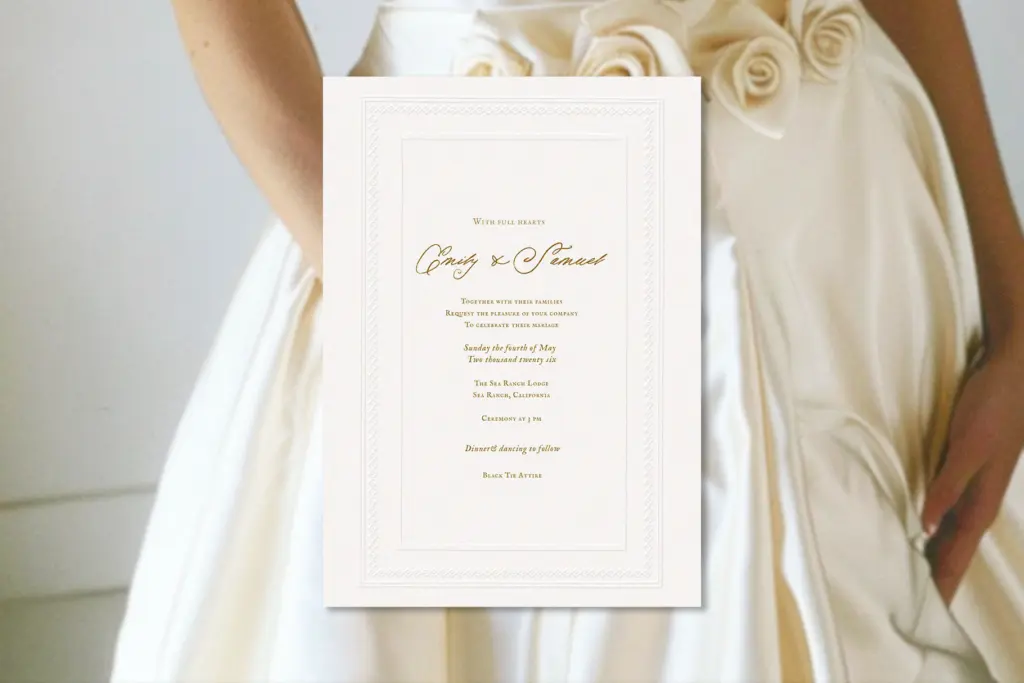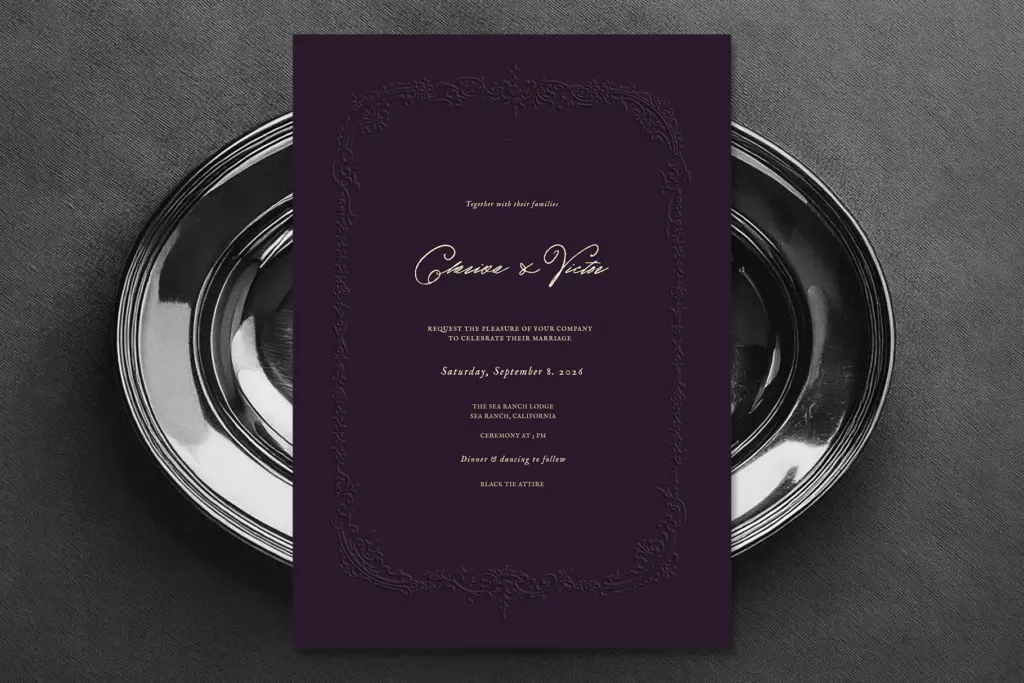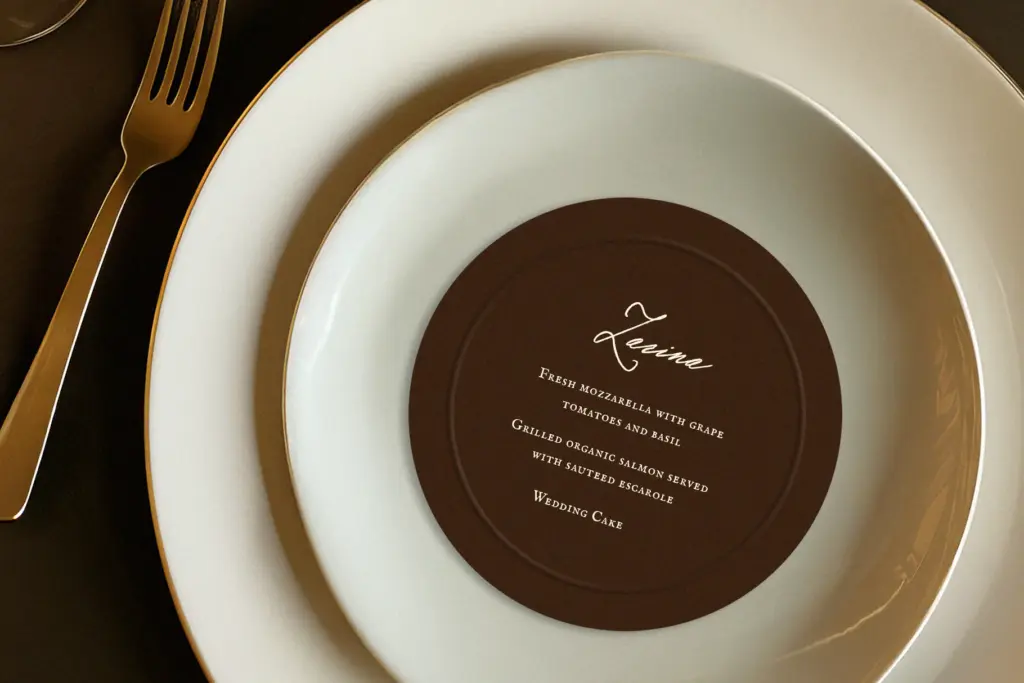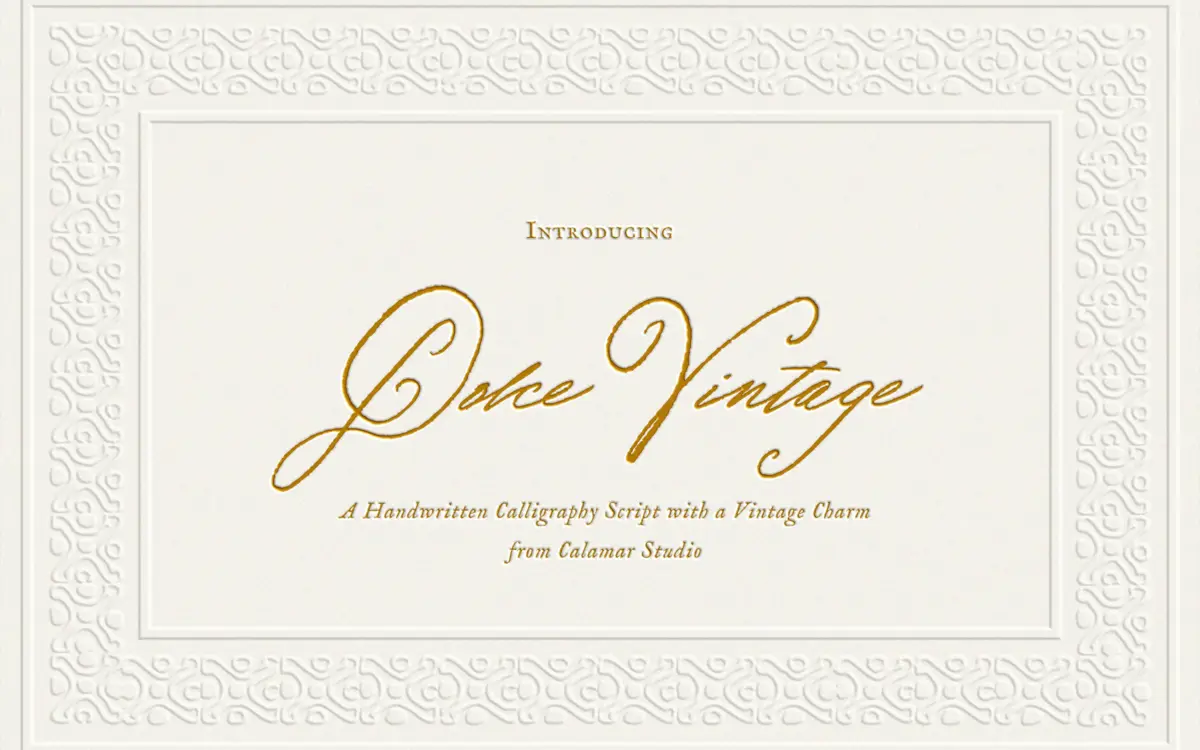
Dolce Vintage sits in the crowded field of casual calligraphic scripts, but its selling point is texture rather than flourish. The strokes carry a broken, torn-edge quality that reads as if the pen was dragged over slightly rough paper — ink catching and skipping rather than laying down a clean line. That grain gives it a handmade warmth that a lot of vector-smooth scripts lack. The letterforms themselves are unshowy: moderate slant, loose joins, a baseline that dips and rises the way real handwriting does rather than snapping to a grid.
Where it departs from the standard “wedding script” template is in restraint. There’s no exaggerated swash on every capital, no oversized loop threatening to collide with the next line. Ascenders and descenders keep to a reasonable reach, which means the texture — not the flourish — carries the personality. It reads as vintage in feeling rather than in ornament, closer to a note written in fountain pen than a formal engraved invitation.
As a script built for short-form text, Dolce Vintage’s strength is in individual words and lines rather than paragraphs. The textured edges that look good at display size are also the thing to watch: at small sizes the broken strokes can blur into the texture itself, softening letter recognition. This is a font for names, dates, headlines and short phrases, not body copy.
The seller doesn’t specify ligature counts or alternate character sets, so treat the connecting joins as a fixed system rather than something you’ll swap and reswap for perfect flow — test problematic letter pairs (double letters, awkward ascender-descender meetings) before committing to a final layout, since texture fonts are more prone to visual clashes at joins than clean-line scripts. Format support covers OTF, TTF and WOFF, which covers desktop design work and basic web use without issue.
The obvious home is wedding stationery — save-the-dates, invitation suites, place cards, table numbers — anywhere a single line of script needs to feel personal rather than printed. The torn-edge texture also suits rustic or artisanal branding: small-batch food labels, candle packaging, market stall signage, anything trying to signal “made by hand” without literally being handwritten each time.
It works less well as a workhorse font. Don’t reach for it in body paragraphs, dense forms, or anywhere legibility at small sizes is non-negotiable — the texture that gives it charm at 60pt becomes noise at 10pt. Pair it with a plain sans or slab for supporting text, letting Dolce Vintage carry only the words that need warmth: a name, a date, a single line of copy. Used that way, in print more than on low-resolution screens where the fine broken edges can get lost, it does its one job convincingly.
- Torn, hand-inked texture gives it real handmade character without excess flourish
- Restrained slant and moderate loops keep it from overwhelming a layout
- Suits rustic and artisanal branding as easily as formal wedding stationery
- Textured strokes lose definition at small sizes, limiting it to display use
- No stated alternate characters or ligature set, so awkward letter joins need manual checking
Dolce Vintage is a competent, restrained take on the textured wedding script, with genuine handmade grain instead of over-decorated flourishes. It's built for short lines at display size, not for paragraphs, and its charm depends on print quality holding up that fine broken edge. A solid, specific-purpose font rather than an all-rounder.